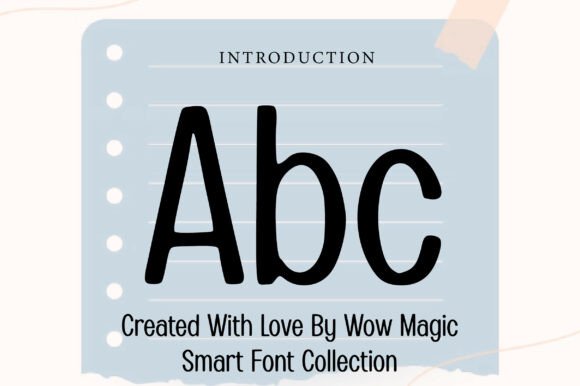
Introduction to Slightly Quirky Font
Slightly Quirky is a tall and playful handwritten display font with a clean, modern personality and a subtle whimsical twist.
Its light, quirky structure makes it perfect for branding, posters, packaging, book covers, social media graphics, editorial titles, and creative headline designs The font has a fun and expressive rhythm that adds personality without losing its minimalist appeal.
Key Features of Slightly Quirky Font